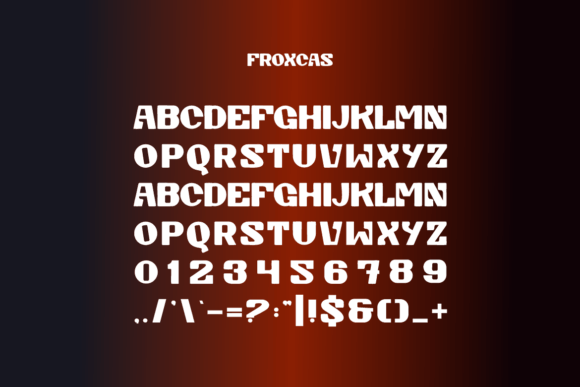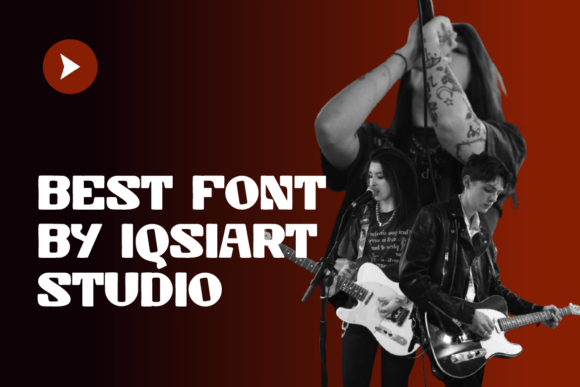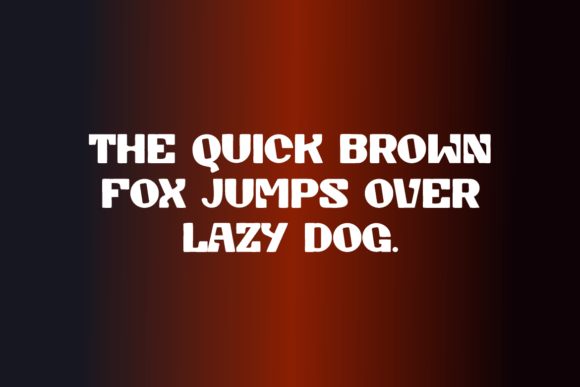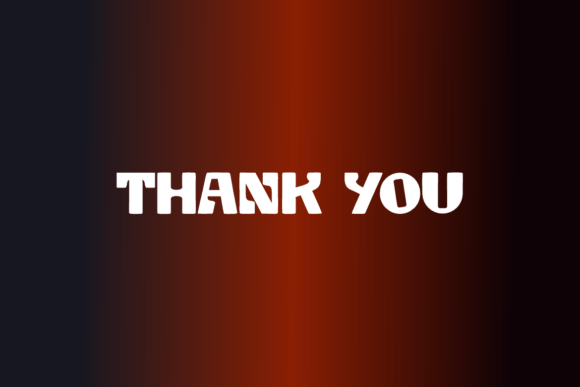
Froxcas Font: Elevate Your Designs with a Bold and Assertive Sans Serif
In the world of typography, a font can make or break a design. It’s the foundation upon which the entire visual identity is built. For designers and crafters, finding the perfect font that can elevate their creations is a never-ending quest. This is where Froxcas Font comes in – a bold and assertive sans serif font that can take your designs to the next level.
The Power of Froxcas Font
Froxcas is a bold and assertive sans serif font that exudes confidence and sophistication. Its clean lines, precise curves, and geometric shape make it a versatile font that can be used for a wide range of design projects. Whether you’re working on a logo, branding, packaging, or advertising material, Froxcas Font is an incredible asset to your font library.
Key Features of Froxcas Font
- Bold and Assertive: Froxcas Font is designed to make a statement. Its bold and assertive style demands attention and makes it perfect for headlines, titles, and emphasis text.
- Sans Serif: The clean and minimalist sans serif design of Froxcas Font makes it easy to read and versatile for various design applications.
- Geometric Shape: The font’s geometric shape gives it a modern and sleek look that’s perfect for contemporary designs.
- Highly Legible: Froxcas Font is designed to be highly legible, even at small sizes, making it perfect for body text and captions.
Use Cases for Froxcas Font
Froxcas Font is a versatile font that can be used for a wide range of design projects, including:
- Logo Design: Froxcas Font is perfect for creating bold and memorable logos that make a statement.
- Branding: Use Froxcas Font to create a consistent visual identity for your brand that’s modern, sleek, and sophisticated.
- Packaging: Froxcas Font is great for packaging design, especially for products that require a bold and attention-grabbing label.
- Advertising: Use Froxcas Font to create eye-catching headlines and emphasis text that demands attention.
Why Choose Froxcas Font?
With so many fonts available, why choose Froxcas Font? Here are a few reasons:
- Unique Style: Froxcas Font has a unique style that’s both bold and sophisticated, making it stand out from other fonts.
- Versatility: Froxcas Font is highly versatile and can be used for a wide range of design projects.
- Easy to Read: Froxcas Font is highly legible, making it perfect for body text and captions.
- High-Quality: Froxcas Font is a high-quality font that’s designed to deliver exceptional results.
In conclusion, Froxcas Font is a bold and assertive sans serif font that’s perfect for designers and crafters looking to elevate their designs. Its unique style, versatility, and high legibility make it an incredible asset to any font library. Whether you’re working on a logo, branding, packaging, or advertising material, Froxcas Font is sure to deliver exceptional results. So why wait? Add Froxcas Font to your collection today and take your designs to the next level!